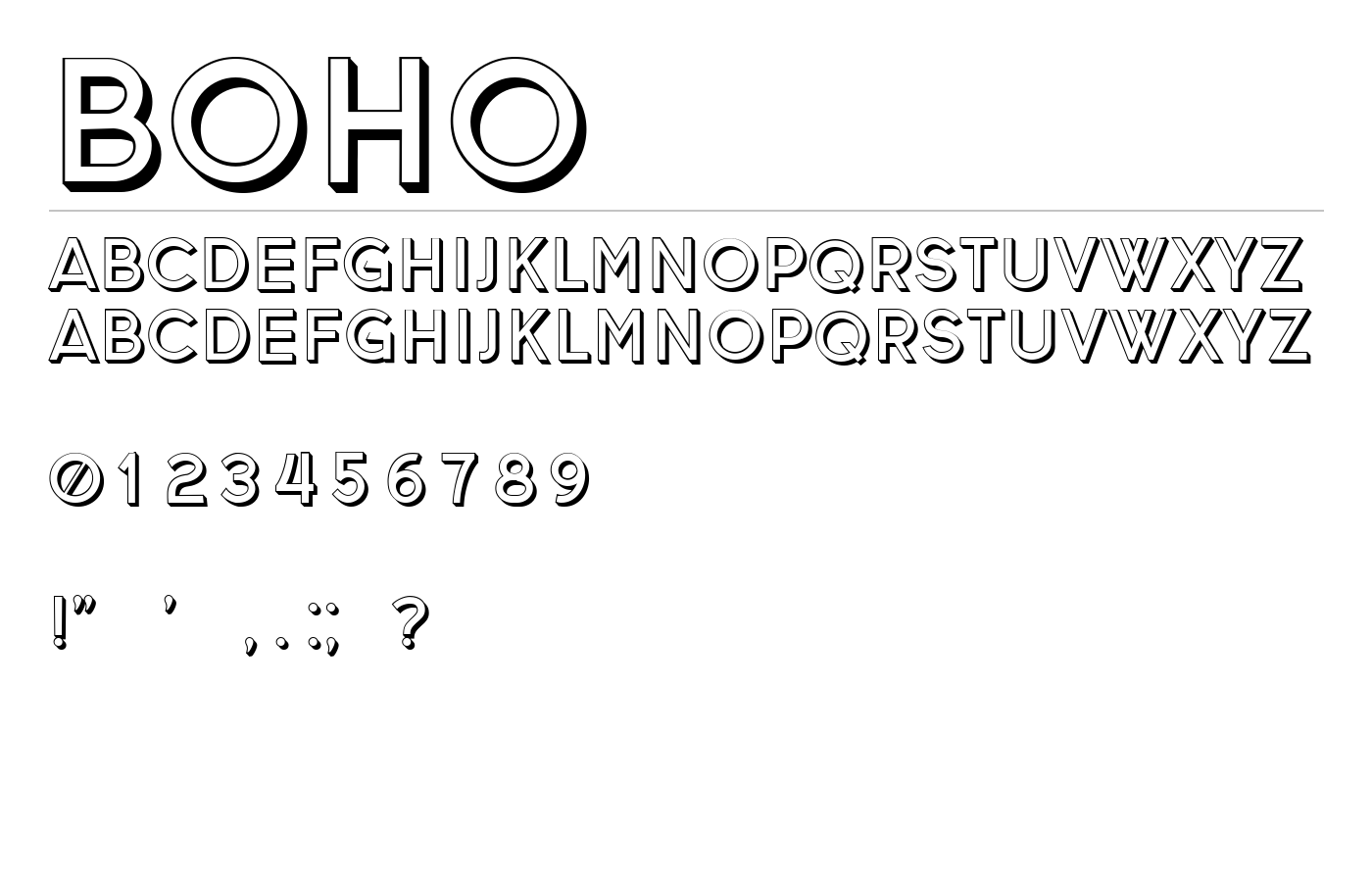
Boho Font is a bold, geometric sans serif typeface with a playful, retro vibe thanks to its layered shadow effect and clean lines. Its wide, uppercase characters and clear shapes make it ideal for eye-catching headlines, logos, and branding that want to convey a fun yet modern personality. This font works especially well in creative and lifestyle projects where a touch of vintage charm and strong visual impact is desired.
Boho Font
About Boho Font
| Font family | Boho Font |